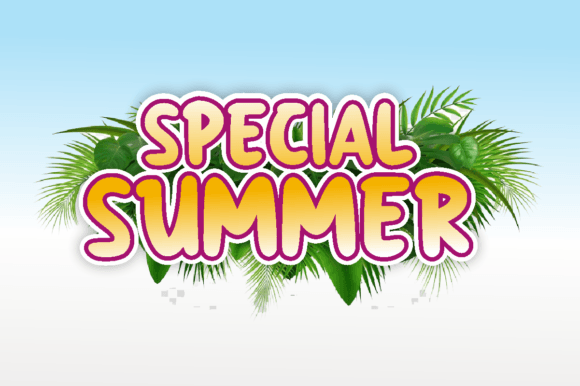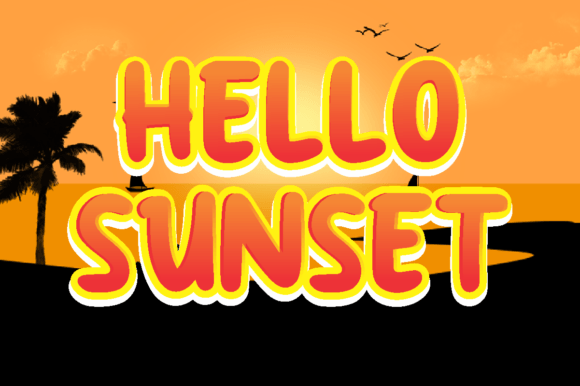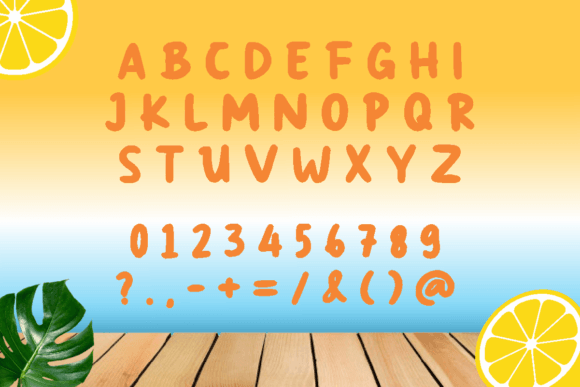
Introduction to Refresh Font Font
Fonts play a crucial role in design, and the Refresh Font font is a typeface that brings both character and versatility to any project. Whether you’re working on a branding project, a website, or a print design, the Refresh Font font offers a unique style that can elevate your work.
Refresh Is a brave and fun display font that will make your creative project extraordinary.
This font is very suitable for shirts, stickers, covers of books, childrenβs books, social media shipments, invitations, and more .
Key Features of Refresh Font Font
Why Choose Refresh Font Font?
The Refresh Font font is more than just a typeface β it’s a design tool that helps you communicate your message with style and clarity. Its unique character set and versatile design make it suitable for a wide range of applications, from elegant invitations to bold headlines.
With its carefully crafted letterforms and balanced proportions, the Refresh Font font ensures readability and visual appeal across all mediums.
What makes Refresh Font font special?
The Refresh Font font stands out with its unique design, exceptional readability, and versatility across various design applications.